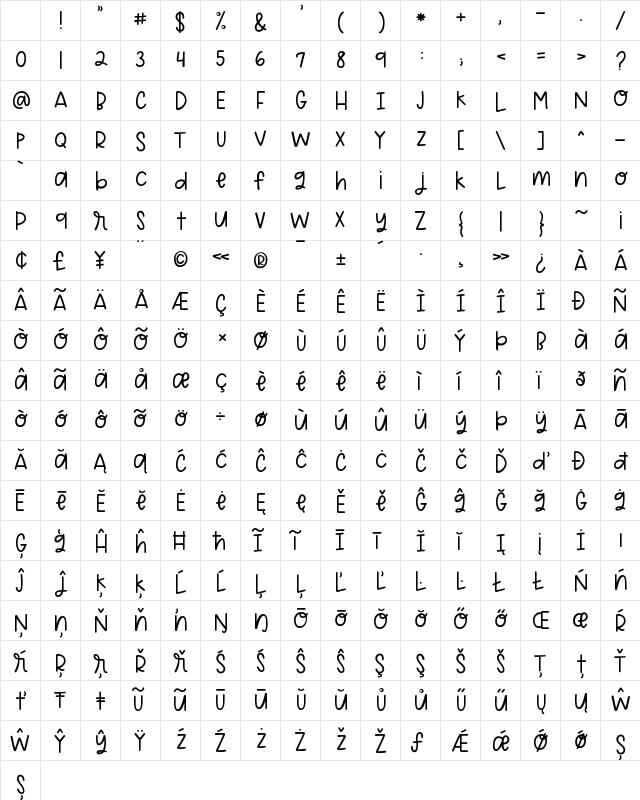
Complete KG Head Above Water Regular glyph index. Displaying only characters natively supported by KG Head Above Water Regular font.
KG Head Above Water is a composed and adaptable typeface that performs quietly and consistently across a wide range of design contexts.